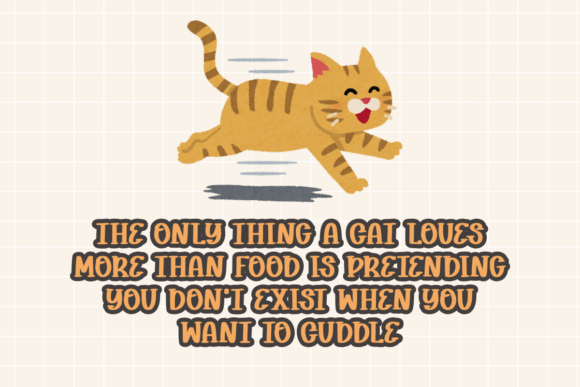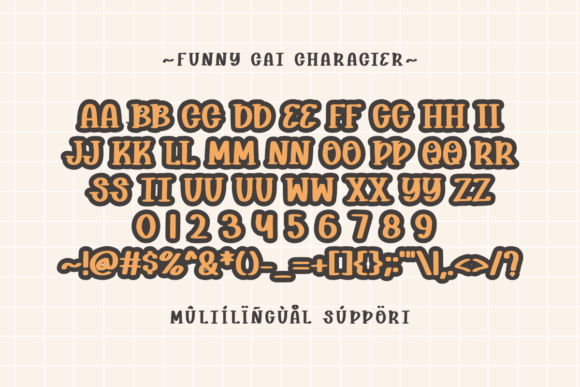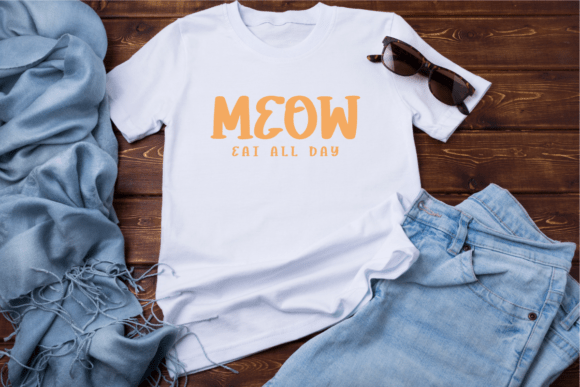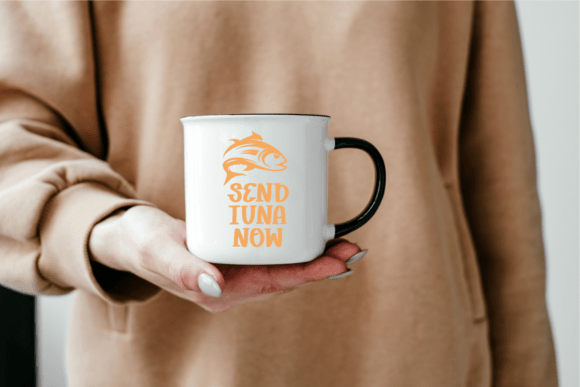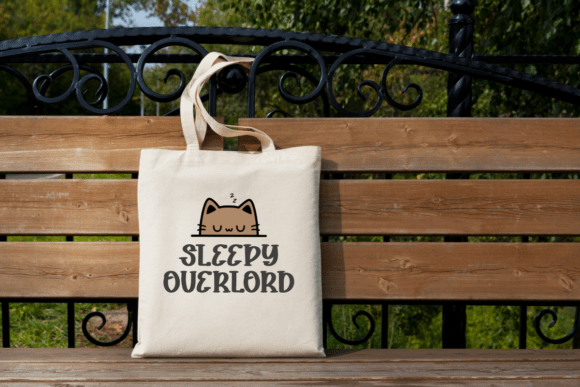
Introduction to Funny Cat Font Font
Fonts play a crucial role in design, and the Funny Cat Font font is a typeface that brings both character and versatility to any project. Whether you’re working on a branding project, a website, or a print design, the Funny Cat Font font offers a unique style that can elevate your work.
| 📌 Font Name | Funny Cat Font |
| 👤 Author | CraftedType Studio |
Funny Cat is a charming slab serif font with a clean yet whimsical vibe.
Featuring smooth curves and a hand-drawn feel, this font is perfect for romantic designs, wedding invitations, heartfelt branding, and elegant social media graphics Its versatile style pairs a modern aesthetic with a touch of playful warmth, making it ideal for creative and love-inspired projects.
Key Features of Funny Cat Font Font
Why Choose Funny Cat Font Font?
The Funny Cat Font font is more than just a typeface – it’s a design tool that helps you communicate your message with style and clarity. Its unique character set and versatile design make it suitable for a wide range of applications, from elegant invitations to bold headlines.
With its carefully crafted letterforms and balanced proportions, the Funny Cat Font font ensures readability and visual appeal across all mediums.
What makes Funny Cat Font font special?
The Funny Cat Font font stands out with its unique design, exceptional readability, and versatility across various design applications.